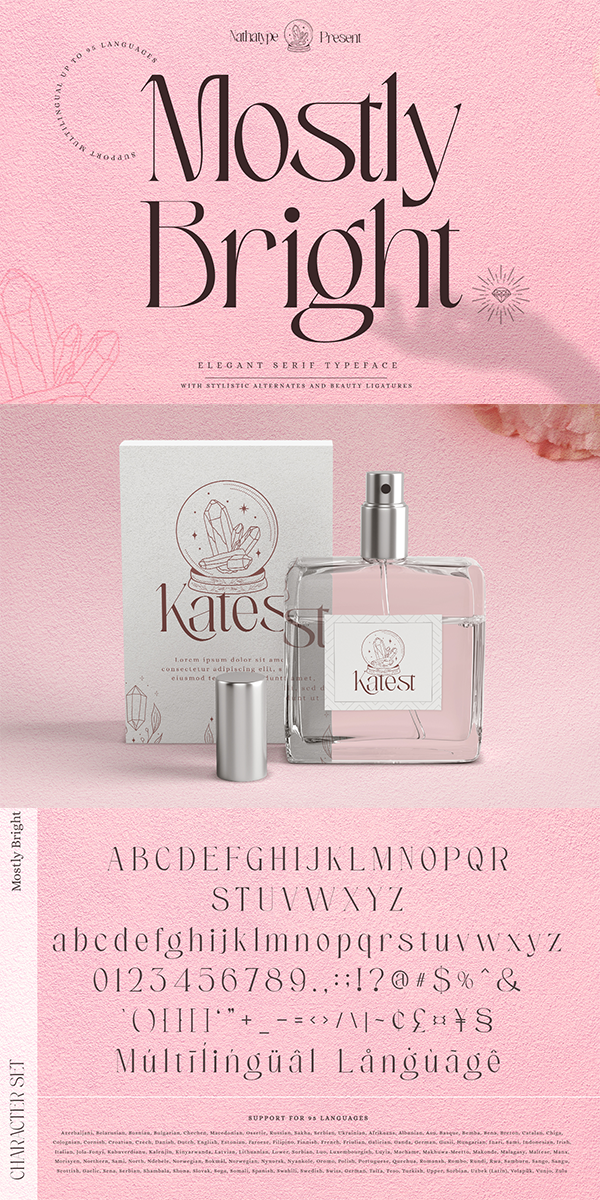
Mostly Bright Font
About Mostly Bright
Be the center of attention through your sophisticated design with the awesome Mostly Bright. It is a serif font. While it’s easy, there are also a little bit curvy strokes for generates modern and elegant vibes. Slay your design with Mostly Bright’s best features so you’ll look your best on what ever your design is, all the time.
-Swash
-Lower and uppercases
It is perfectly used for many design projects, such as poster, logo, book cover, branding, heading, printed product, merchandise, quotes, social media campaign, etc. Get more inspiration about how to use it by seeing the font preview.